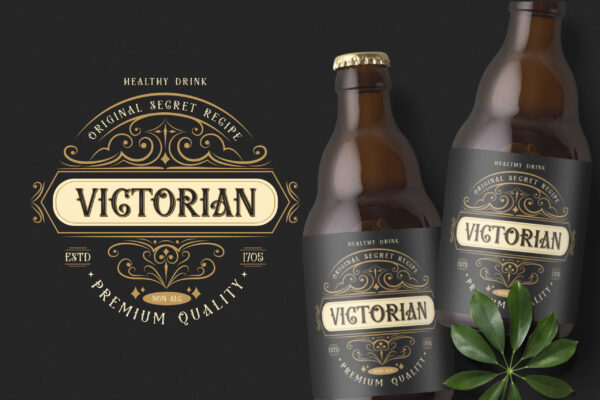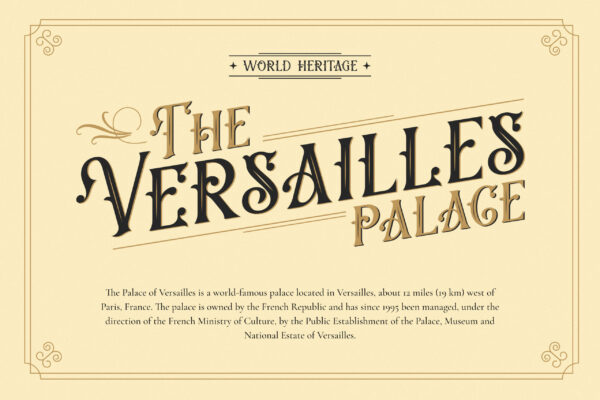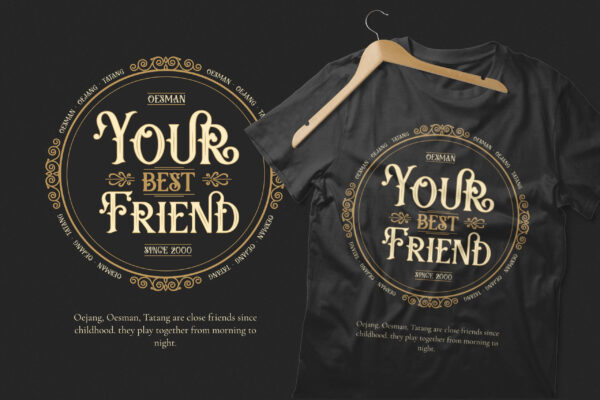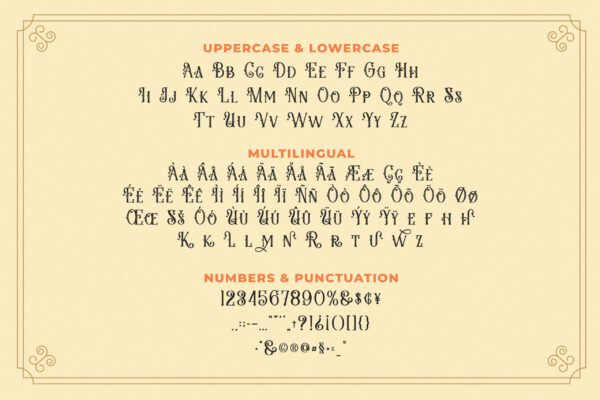
Usman is a decorative Victorian-style typeface that brings the charm and elegance of the 19th century into modern design. With its intricate swashes, vintage curves, and bold yet refined letterforms, this font captures the essence of old-world craftsmanship. It’s the perfect choice for branding, labels, logos, or packaging that seeks to evoke a luxurious, historical, or nostalgic aesthetic.
Featuring complete uppercase and lowercase sets, multilingual support, numbers, and punctuation, Usman offers both flexibility and flair. The ornate details make it ideal for vintage-themed visuals, liquor or apothecary labels, t-shirt prints, and promotional designs. Usman stands out as a stylish homage to the past while remaining highly usable in contemporary contexts.
Usman